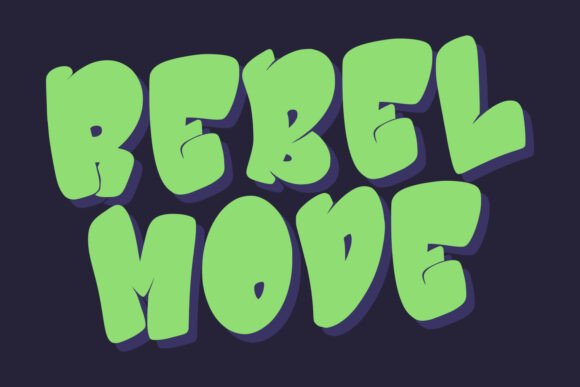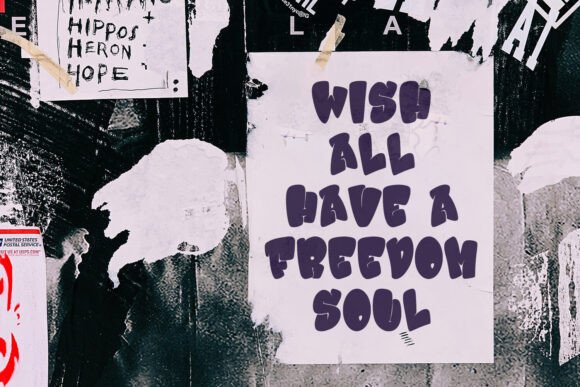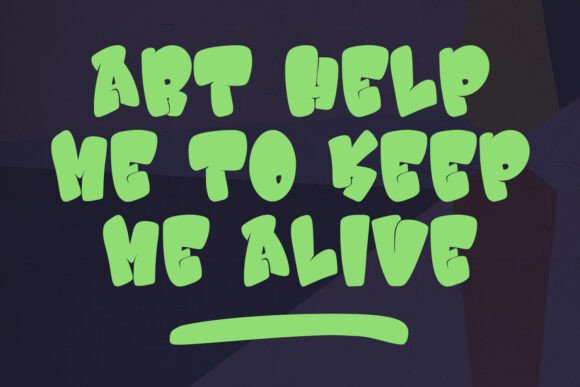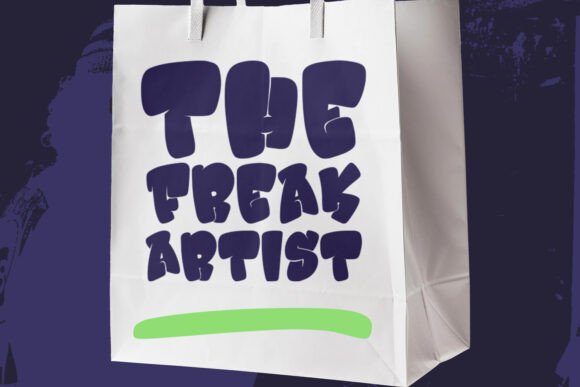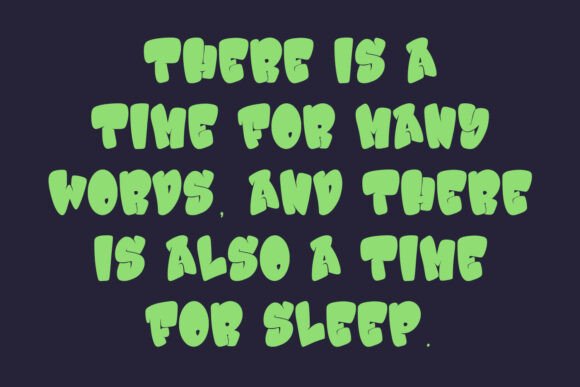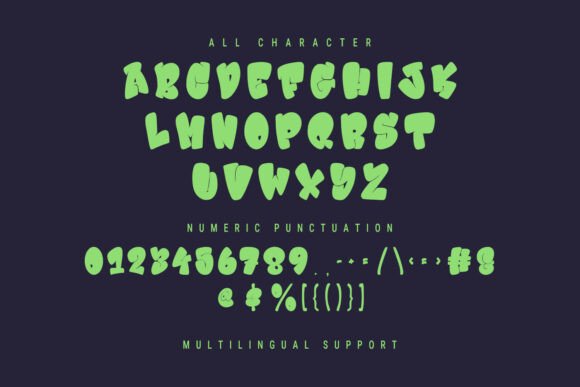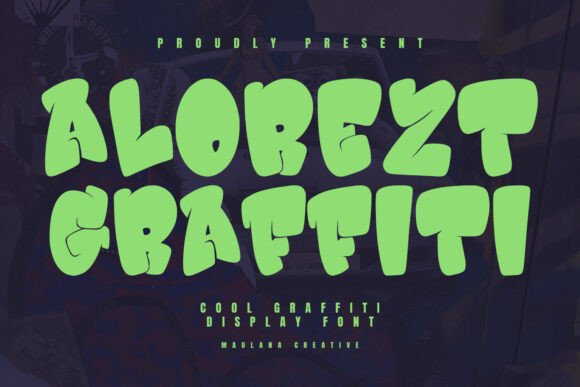
Unleash Your Creativity with Alorezt Graffiti Font
Are you a designer, artist, or crafty individual looking for a font that embodies the spirit of street art and urban culture? Look no further than Alorezt Graffiti Font, a bold and edgy typeface that’s perfect for making a statement. In this article, we’ll dive into the world of Alorezt Graffiti, exploring its unique features, uses, and benefits.
The Urban Aesthetic of Alorezt Graffiti
Alorezt Graffiti Font is a hand-drawn, street-style display font that exudes an urban, rebellious vibe. Its chunky, exaggerated letterforms are reminiscent of graffiti tags and street art, making it an ideal choice for designs that require a bold, attention-grabbing aesthetic. Whether you’re creating posters, flyers, or social media graphics, Alorezt Graffiti is sure to make your text pop with personality.
Perfect for Graffiti-Inspired Designs
As its name suggests, Alorezt Graffiti Font is specifically designed for graffiti-inspired designs. Its bold, expressive letterforms capture the energy and spontaneity of street art, making it perfect for projects that require a raw, edgy look. From hip-hop branding to streetwear designs, Alorezt Graffiti is the perfect choice for creatives who want to add a touch of urban grit to their work.
Key Features of Alorezt Graffiti Font
- Bold and chunky letterforms: Alorezt Graffiti Font features thick, exaggerated letterforms that are perfect for making a statement.
- Hand-drawn aesthetic: Each letterform is carefully hand-drawn, giving Alorezt Graffiti a unique, organic feel.
- Urban, street-style vibe: Alorezt Graffiti captures the energy and rebellion of street art, making it perfect for designs that require an edgy aesthetic.
- Multilingual support: Alorezt Graffiti Font supports multiple languages, making it a versatile choice for designers and crafters worldwide.
Uses for Alorezt Graffiti Font
Alorezt Graffiti Font is a versatile typeface that can be used in a variety of creative projects, including:
- Graffiti-inspired designs: Use Alorezt Graffiti to create bold, eye-catching graphics that capture the spirit of street art.
- Hip-hop branding: Alorezt Graffiti is perfect for hip-hop artists, DJs, and producers who want to add a touch of urban grit to their branding.
- Posters and flyers: Use Alorezt Graffiti to create bold, attention-grabbing posters and flyers that stand out from the crowd.
- Streetwear designs: Alorezt Graffiti is a great choice for streetwear designers who want to add a touch of edginess to their apparel designs.
Tips for Using Alorezt Graffiti Font
To get the most out of Alorezt Graffiti Font, here are a few tips to keep in mind:
- Use it boldly: Alorezt Graffiti Font is designed to make a statement, so don’t be afraid to use it in bold, eye-catching ways.
- Experiment with colors: Alorezt Graffiti looks great in a variety of colors, so don’t be afraid to experiment and find the perfect hue for your design.
- Pair it with contrasting fonts: Alorezt Graffiti Font pairs well with contrasting fonts, such as clean sans-serif fonts or elegant script fonts.
Alorezt Graffiti Font is a bold, edgy typeface that’s perfect for designers, artists, and crafty individuals who want to add a touch of urban grit to their work. With its chunky, exaggerated letterforms and hand-drawn aesthetic, Alorezt Graffiti is sure to make your text pop with personality. Whether you’re creating graffiti-inspired designs, hip-hop branding, or streetwear designs, Alorezt Graffiti Font is the perfect choice for creatives who want to unleash their creativity and make a statement.